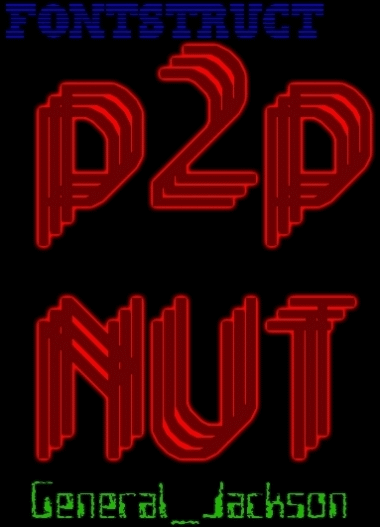
RM Triple DECOr
Another fffont in the DECO fffamily
Nice! I like the numerals. But the sample with the shadow is a bit too much, IMO.
Very nice design. I like the way you have presented it on the demo picture: with shadows. It looks as if the whole thing were made of copper pipes welded together. Cool! 10/10
veryveryvery nicenicenice. :)
Another Neon-ish sample...
nice work... the drunken peoples can be communicative now. ^_^